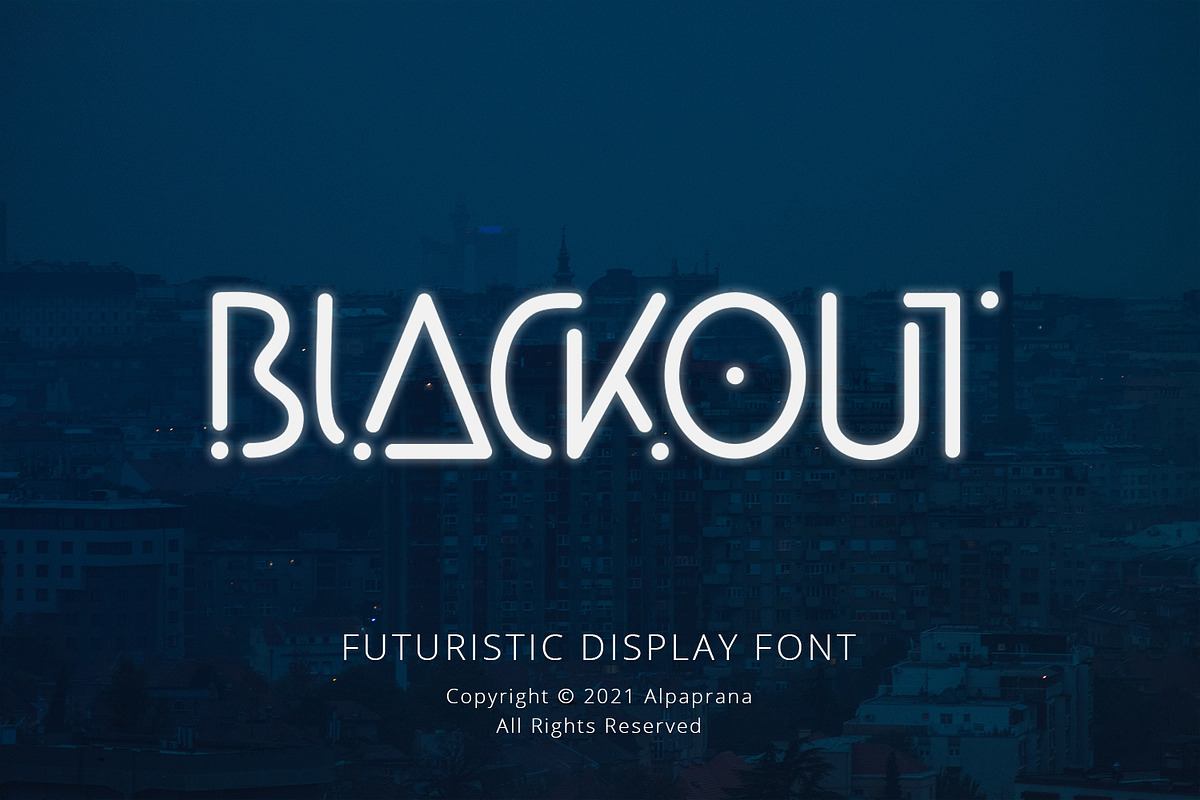
Blackout - Futuristic Display Font Free Download
Blackout - Futuristic Display Font Free Download is a bold and innovative typeface that brings a modern, futuristic vibe to your designs. With its sharp lines and striking geometry, Blackout is perfect for high-tech projects, sci-fi themes, logos, posters, and more. This font is designed to make an impact, offering a unique visual style that grabs attention and stands out in any project.